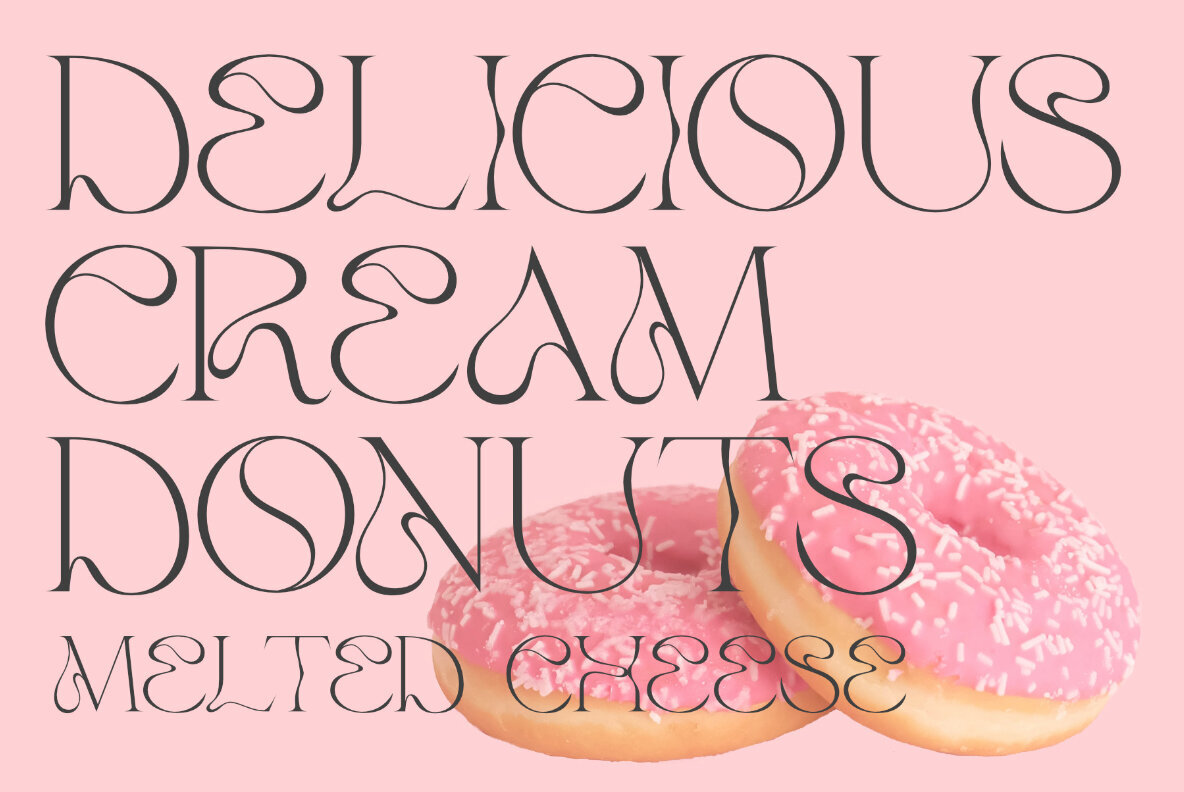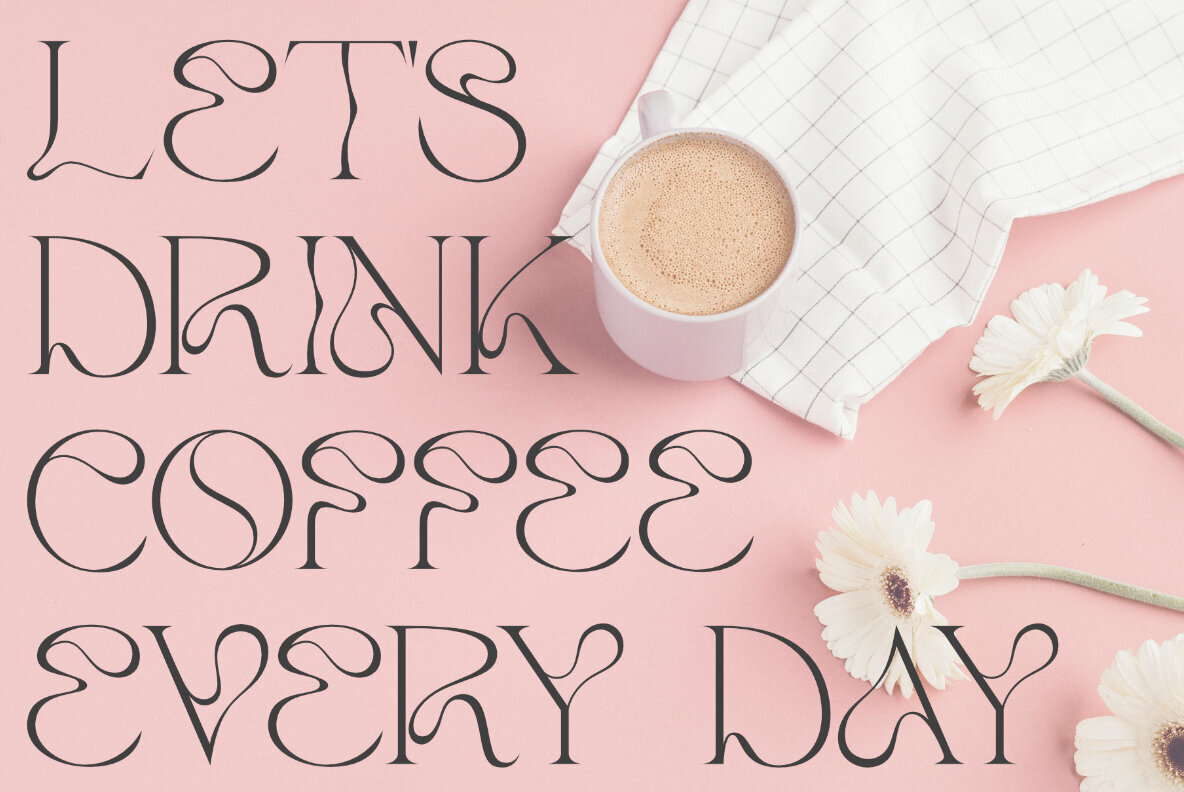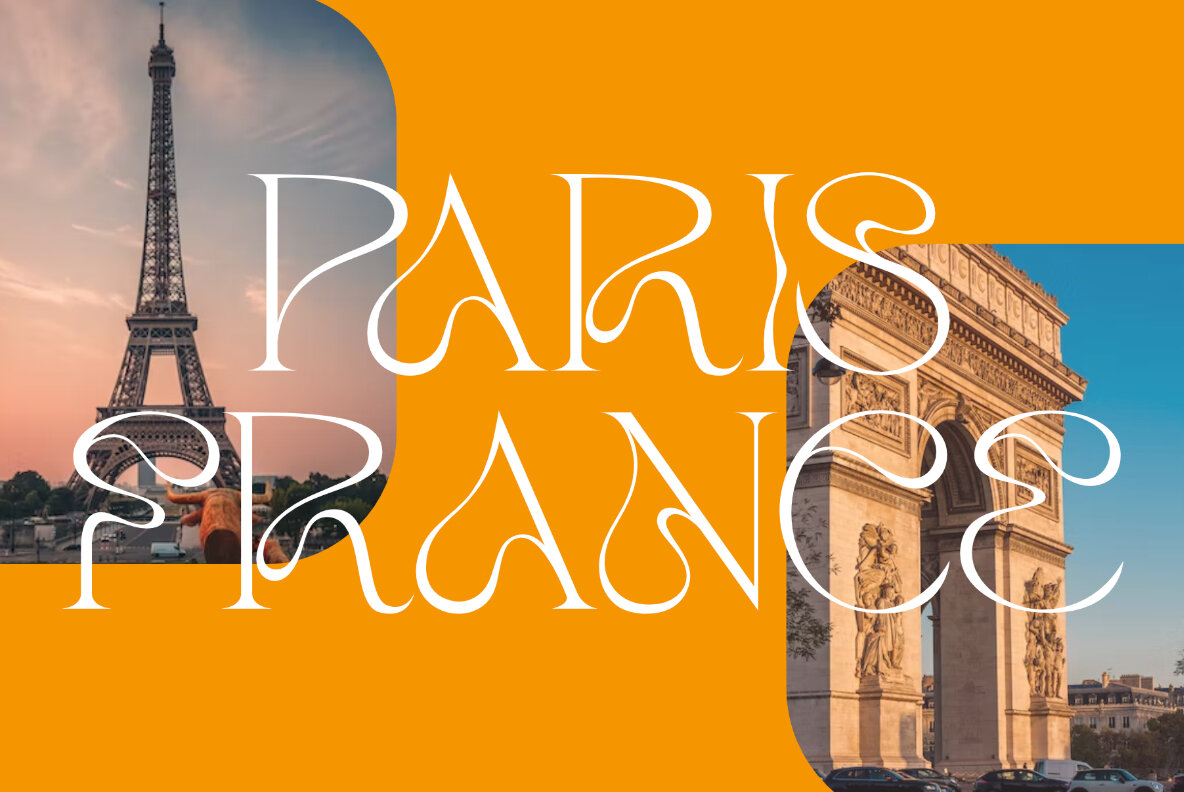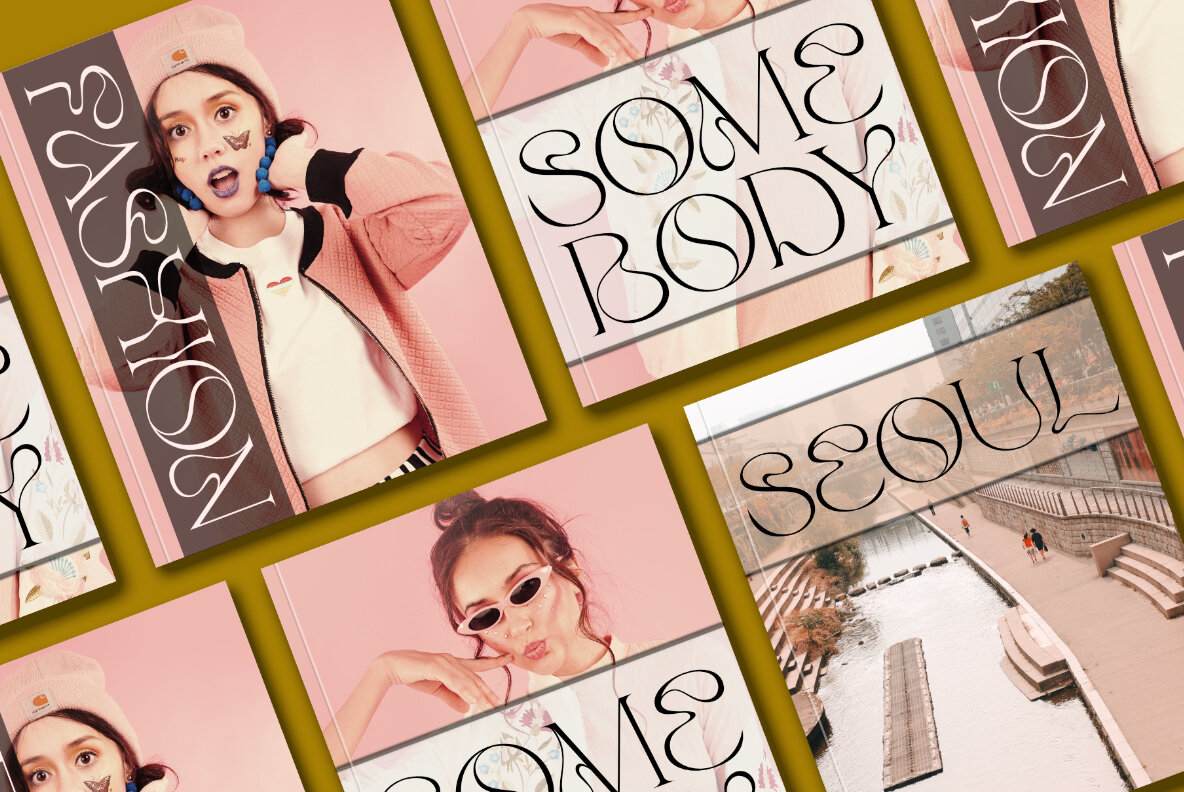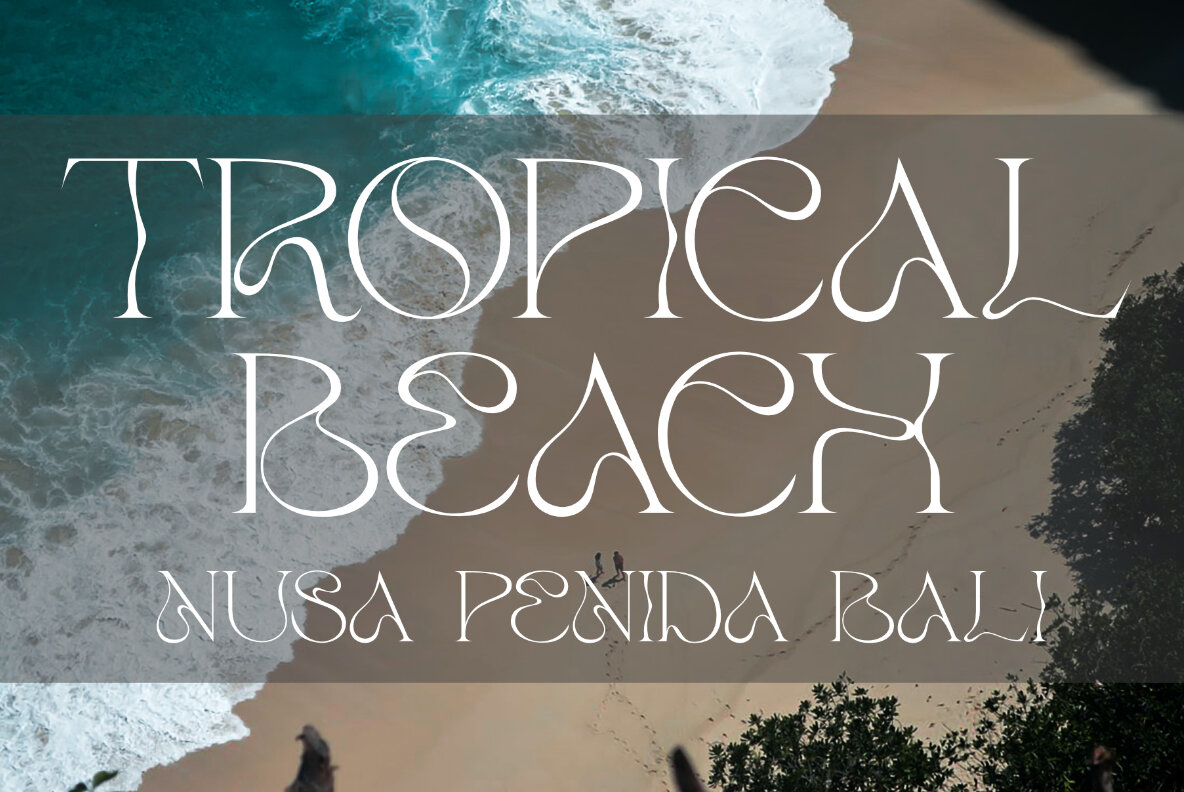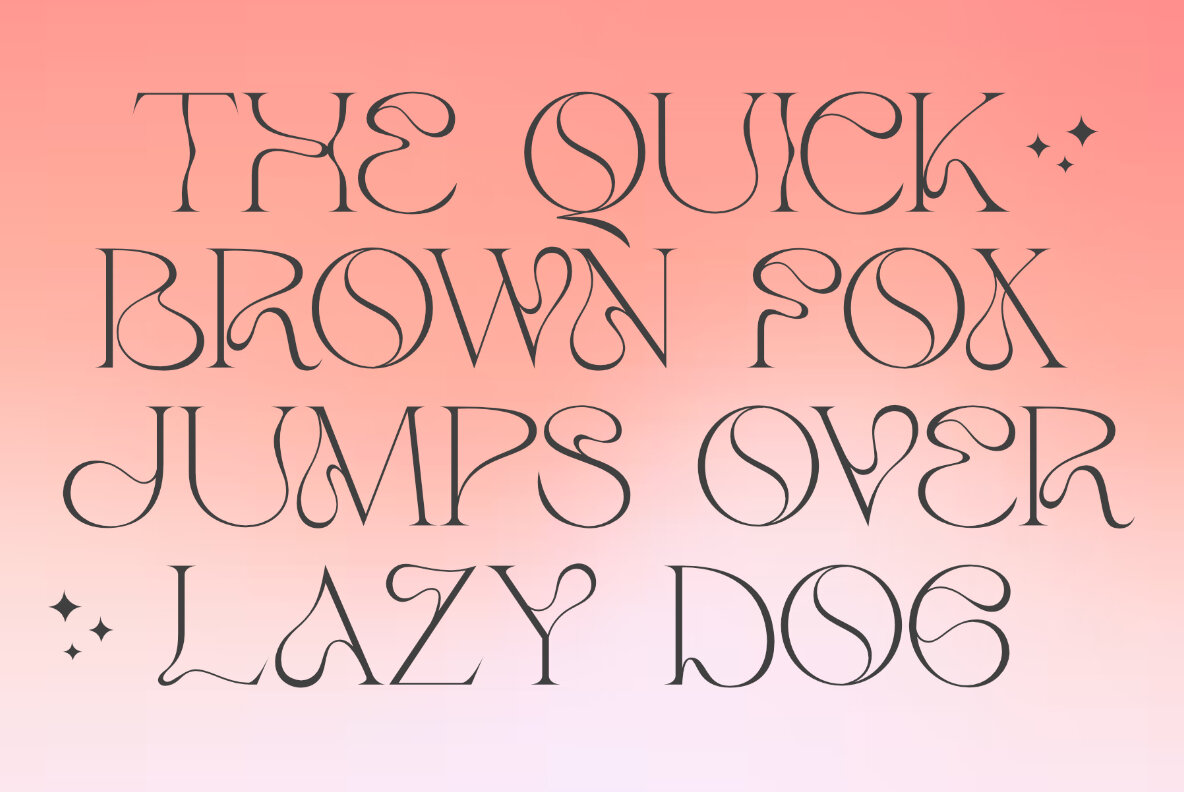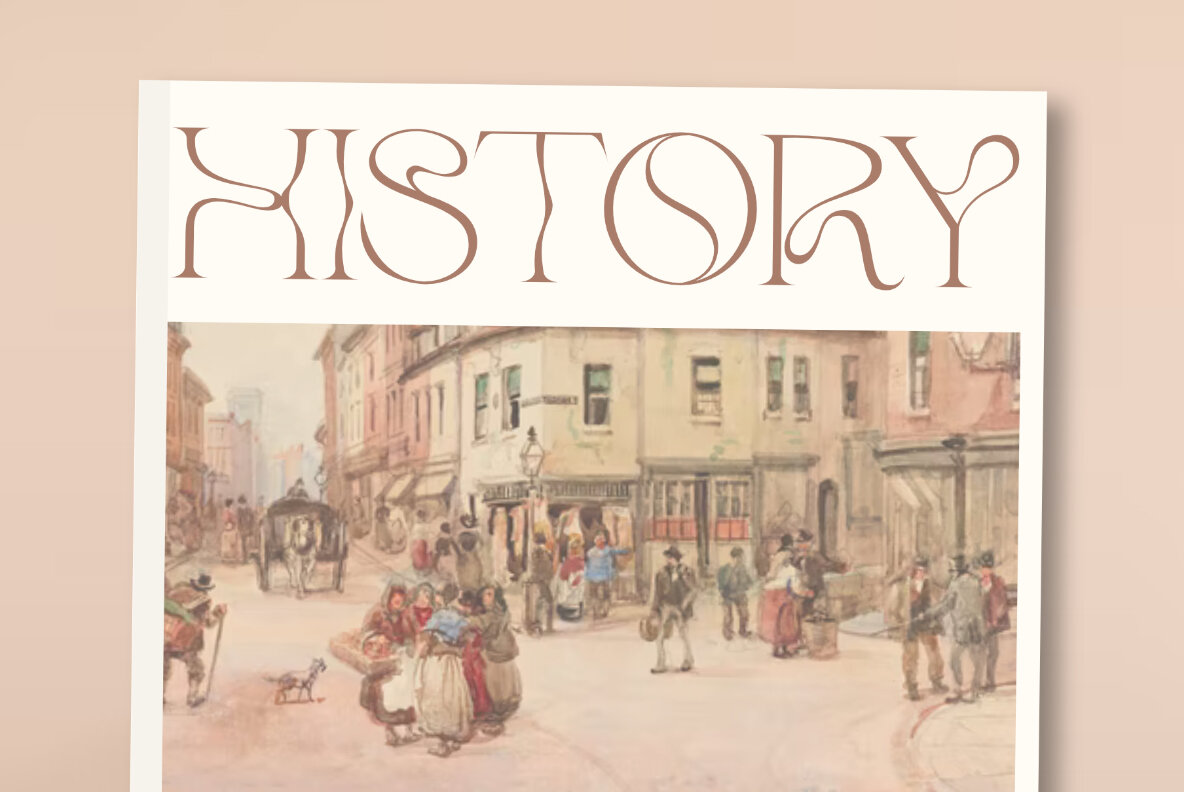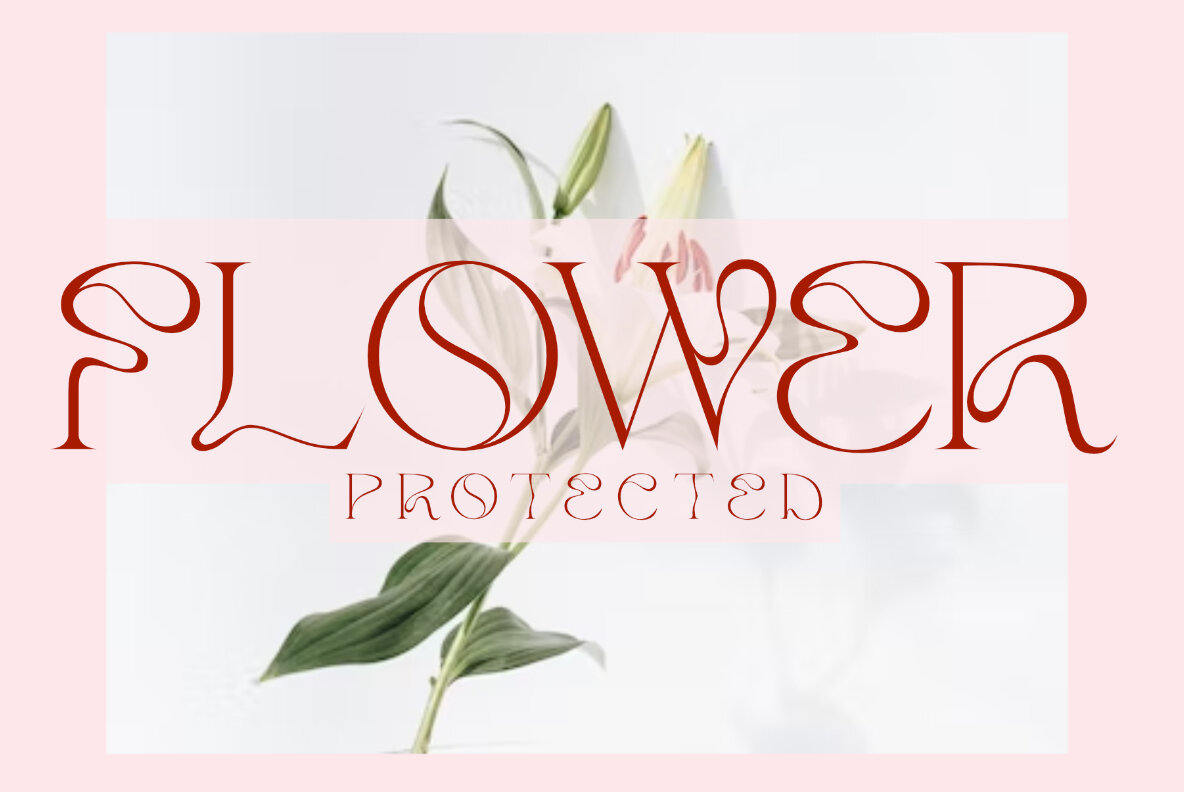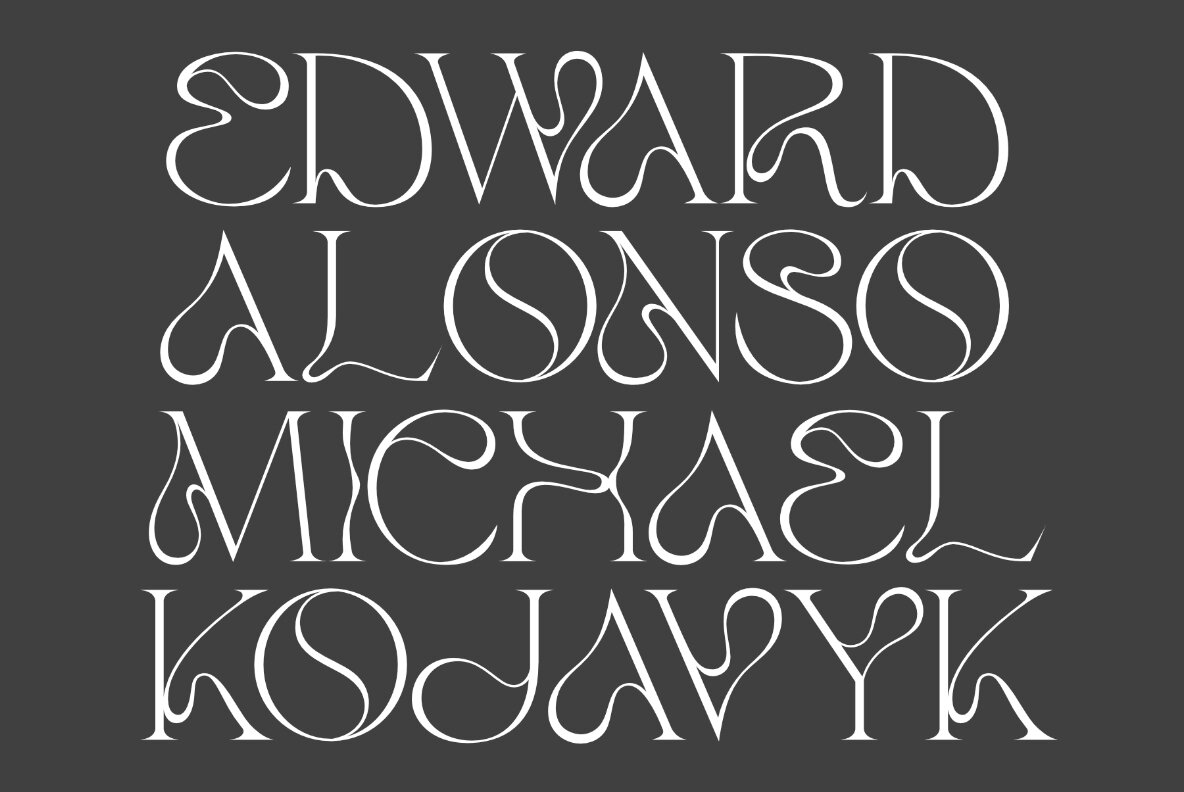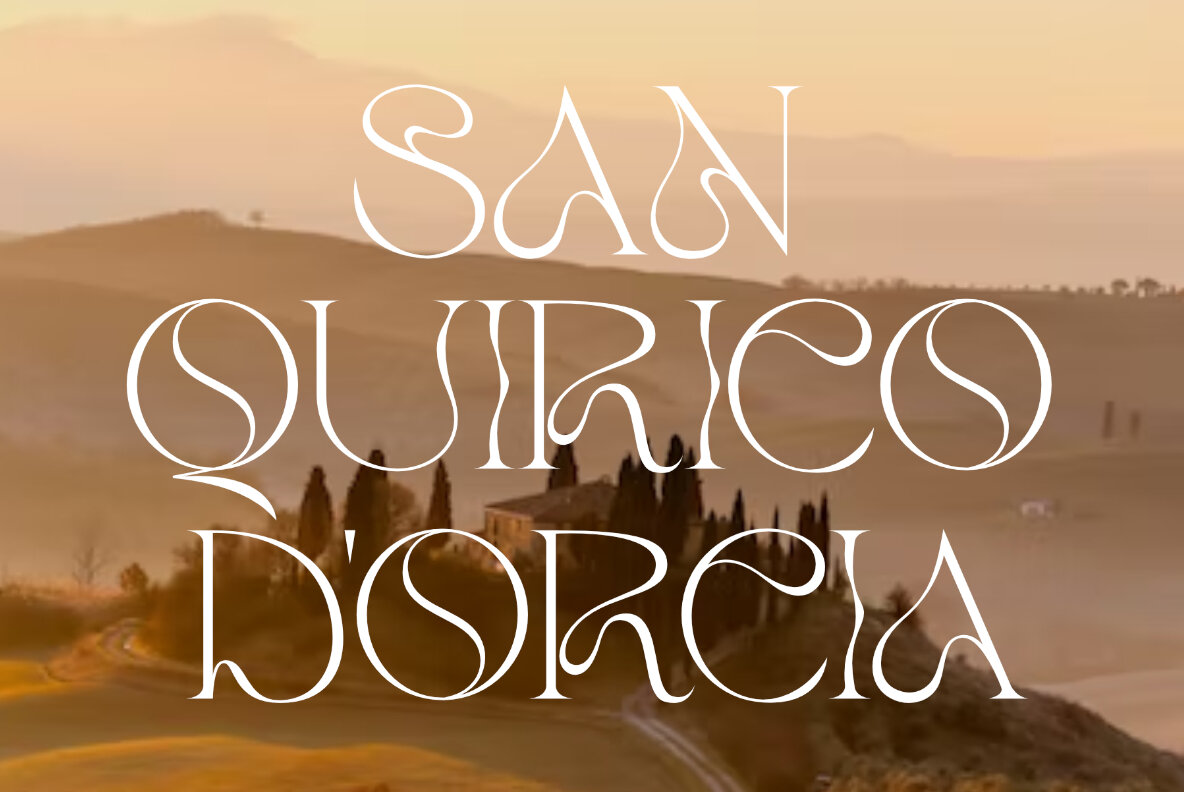
Rabenk Font
Rabenk Regular
Rabenk brings a charming and distinctive flair to any design project. This serif font, with its playful quirks, is perfect for those seeking a modern twist on traditional typography. Its versatility excels when paired with classic serif or sans-serif fonts, making it an ideal choice for mastheads, posters, and business identities.Rabenk: A Playful Quirky Serif
Embrace the creativity Rabenk offers, an open invitation to bring whimsy and style to your typography.